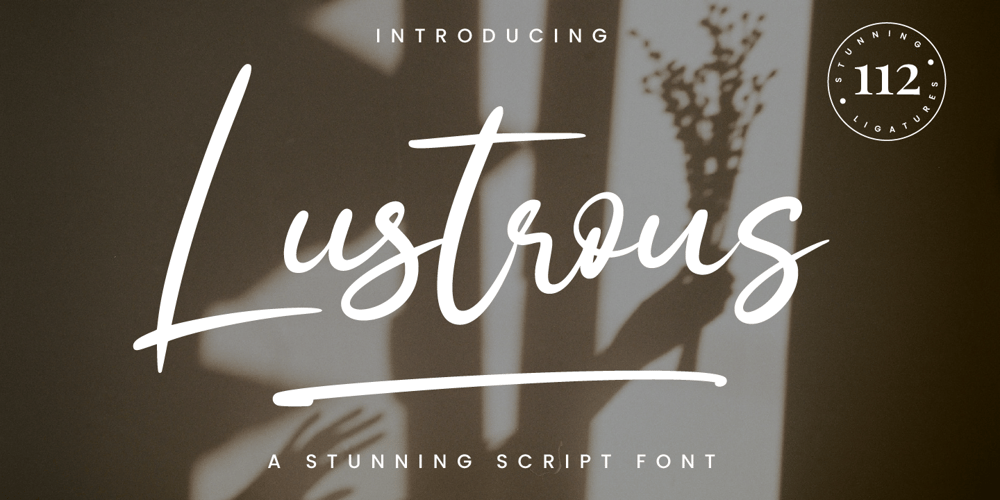
Lustrous Font Family was designed by Hamzah Muhamad Ihsan and published by Typesthetic Studio. Lustrous contains 1 styles and family package options. Lustrous is an elegant script handwritten font. Lustrous font perfect for logos, wedding stationery, cards, gift designs, photography, watermark, product packaging and handwritten quotes. This font includes 112 stunning ligatures and 6 signature swashes. Lustrous also includes full set of uppercase and lowercase letters, multilingual symbols, numerals and punctuation and ligature. This font is PUA encoded, which means you can access all of the glyphs and swashes with ease!